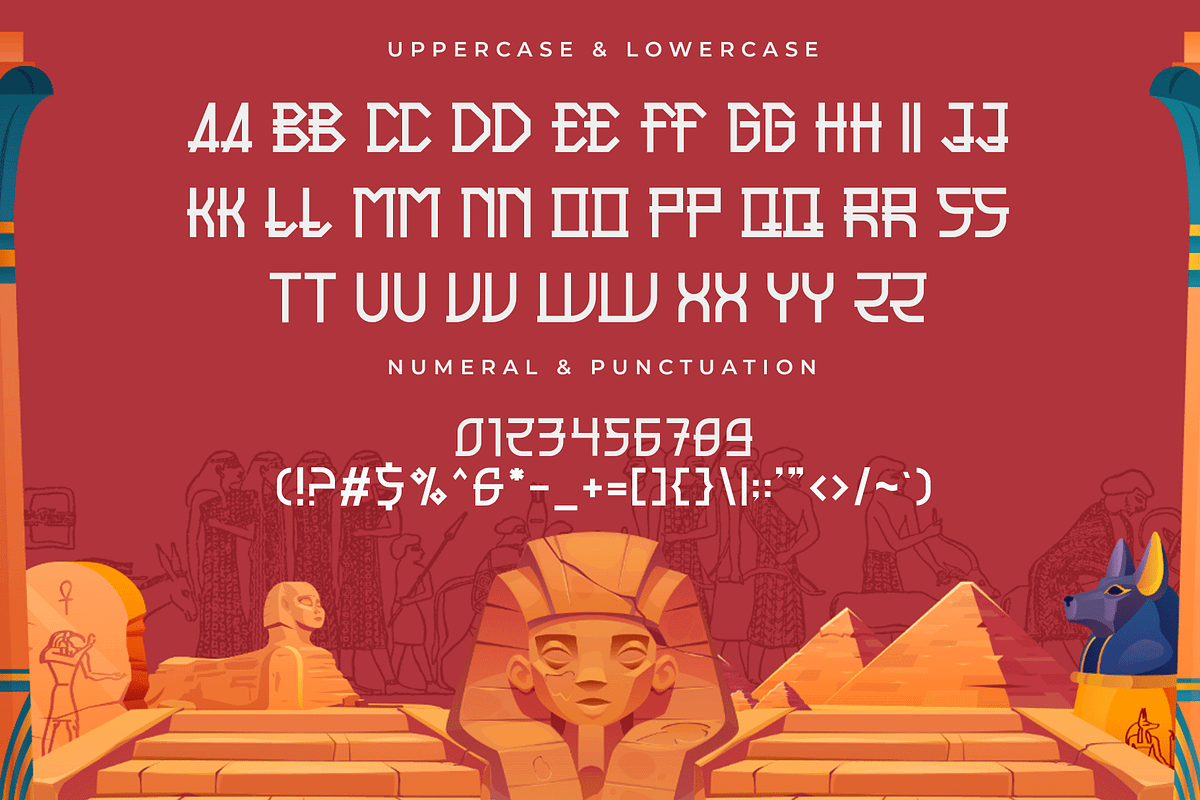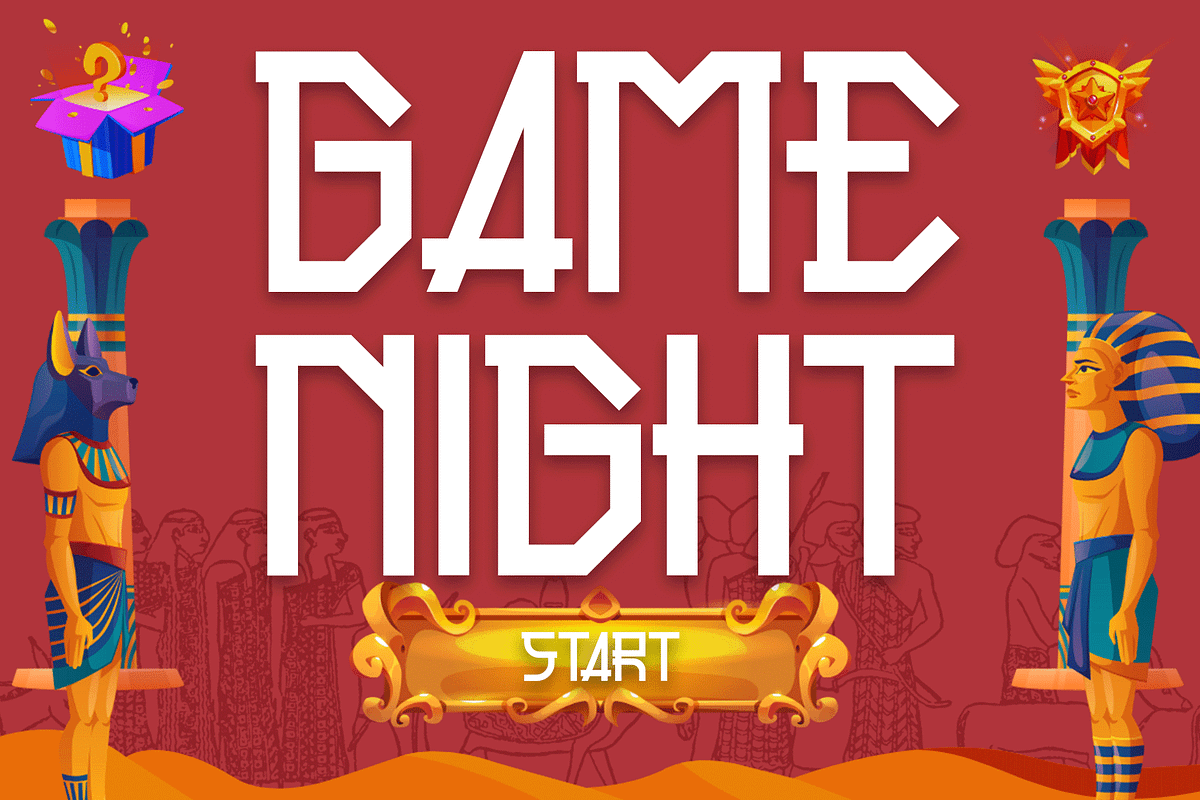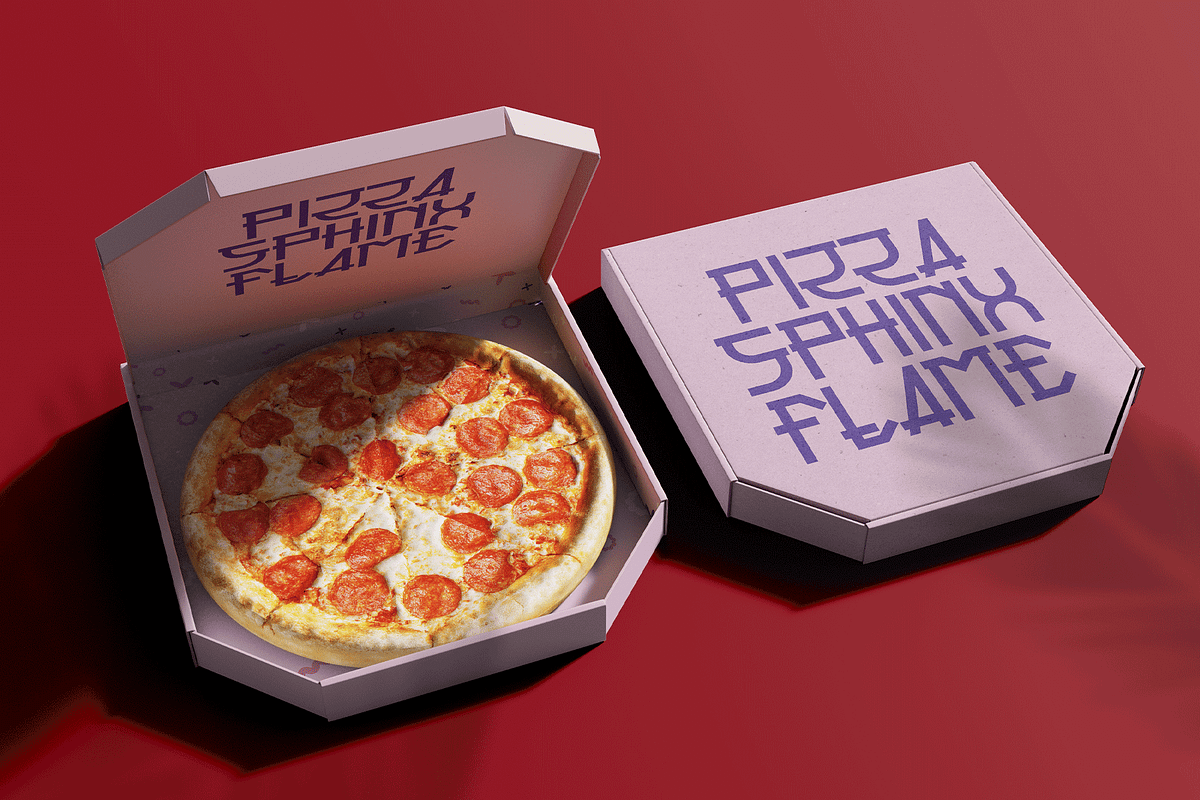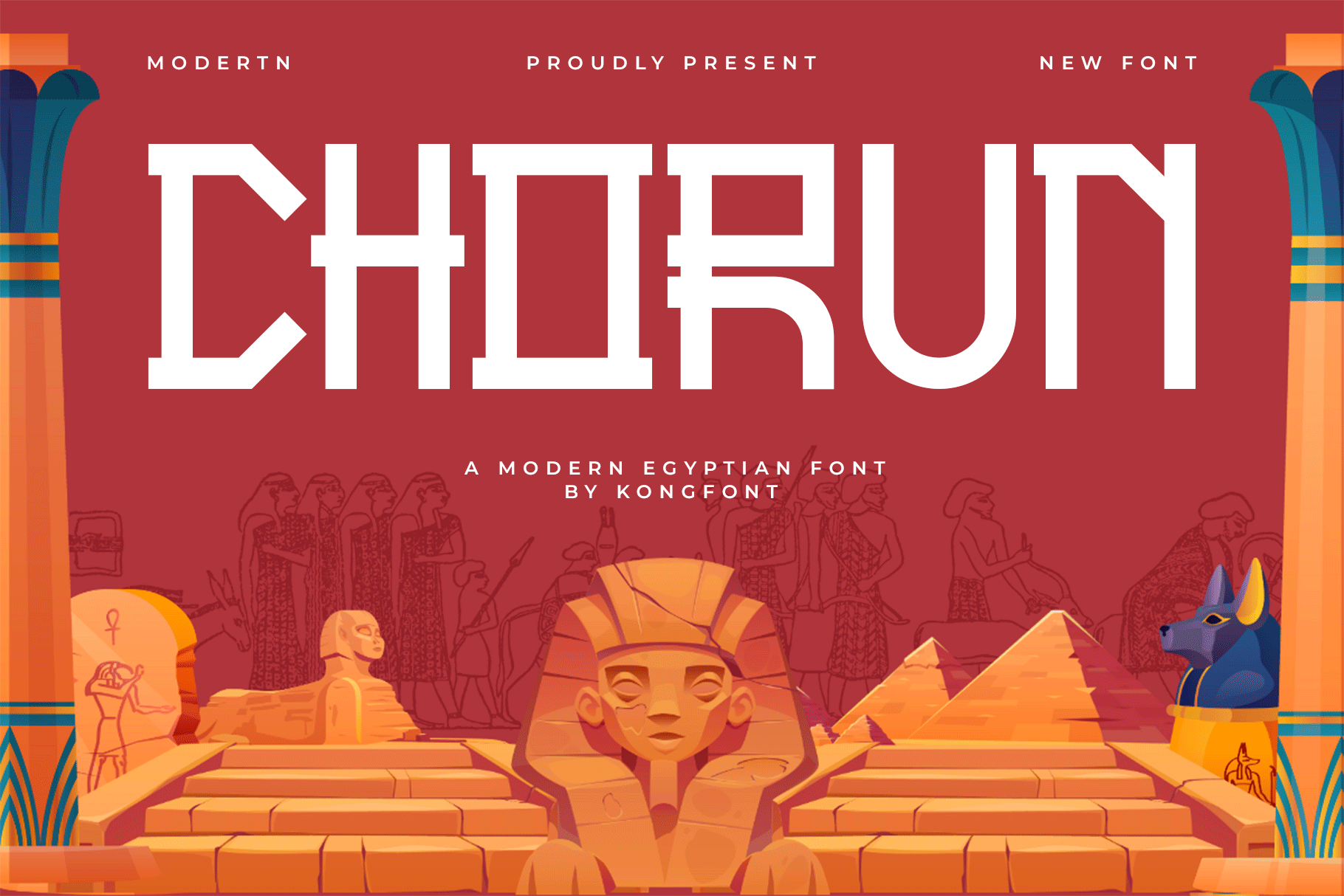
Chorun – Modern Egyptian Font
Discover Chorun, a modern Egyptian font that blends the mystique of ancient hieroglyphic influence with the clean precision of contemporary design. With its bold geometric shapes and structured letterforms, Chorun captures the timeless power and artistry of Egyptian aesthetics while maintaining modern usability.
Perfect for branding, posters, packaging, and cultural design projects, Chorun stands out with its strong visual identity and architectural balance. Each character is crafted to evoke history and heritage, yet polished for modern readability and versatility.
Whether you’re designing a logo inspired by ancient civilizations or a bold editorial headline, Chorun brings a touch of timeless elegance and monumental strength to your work.